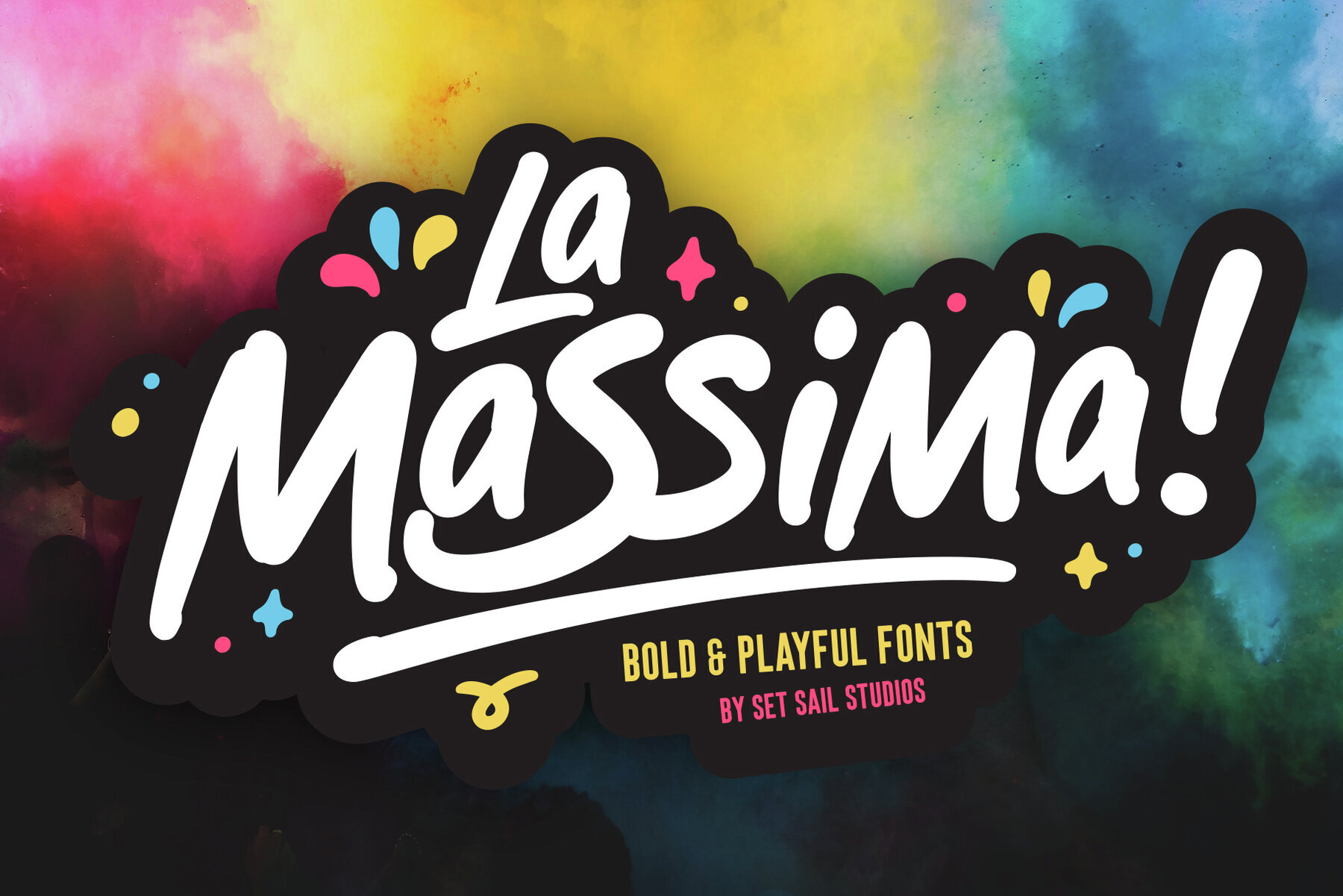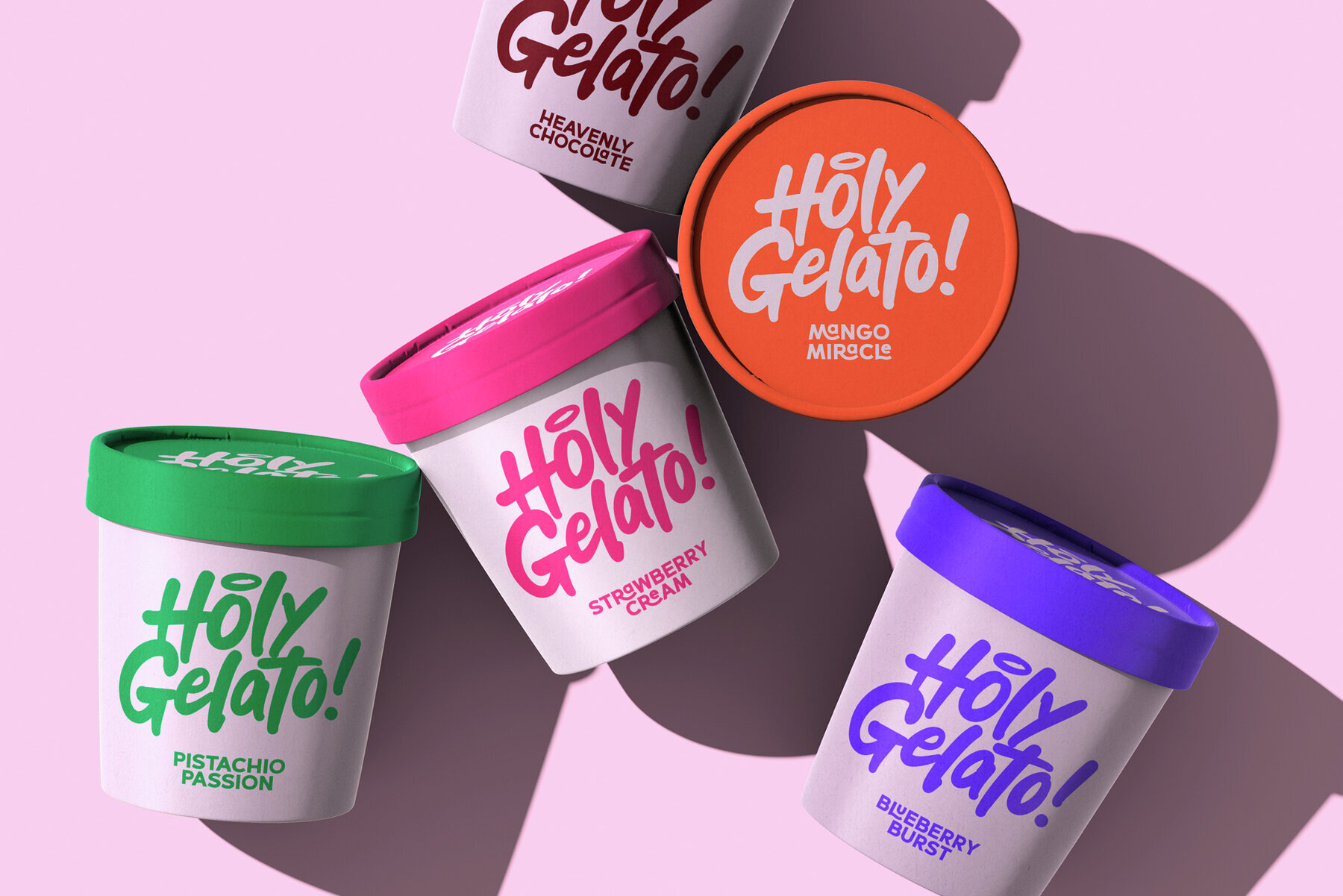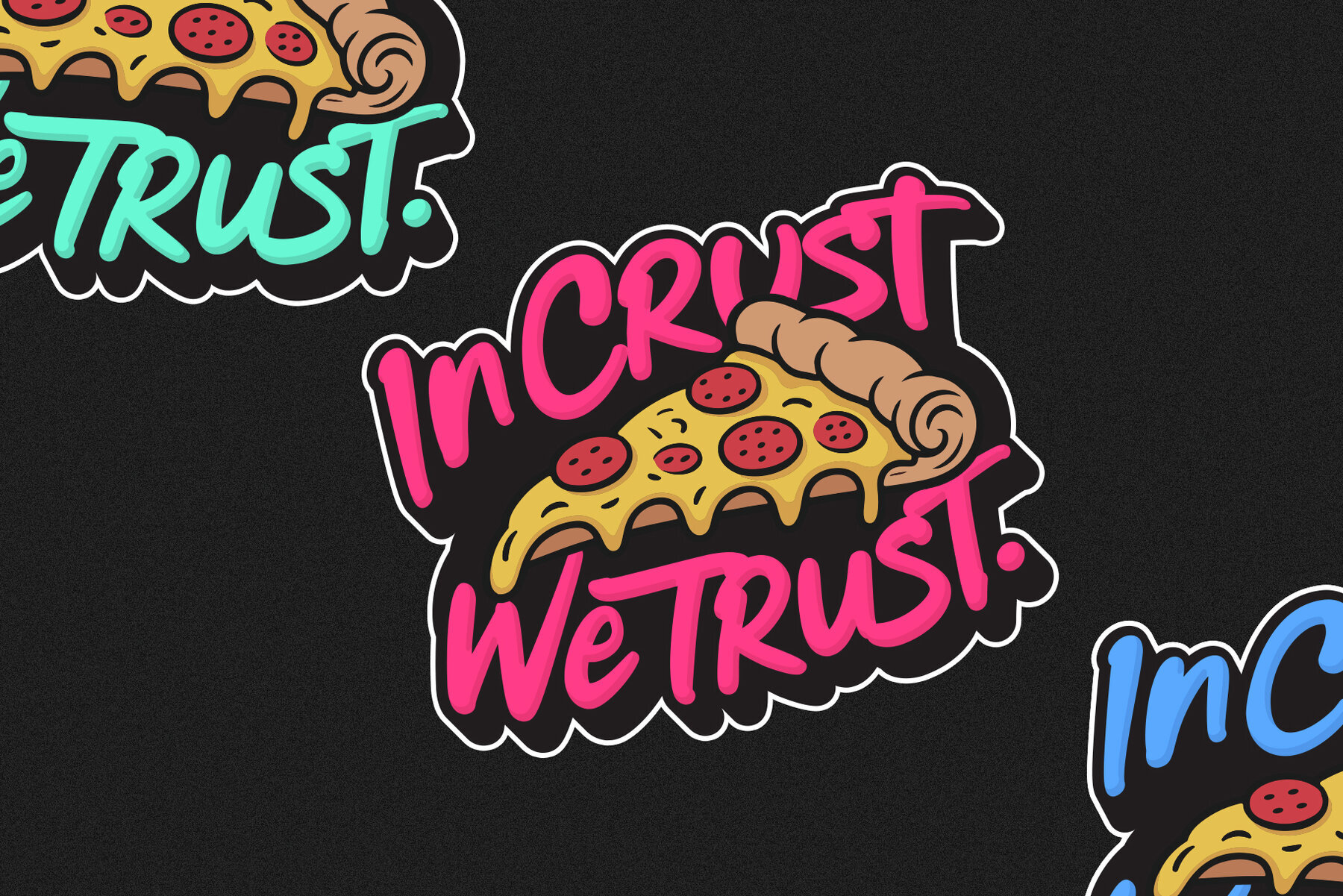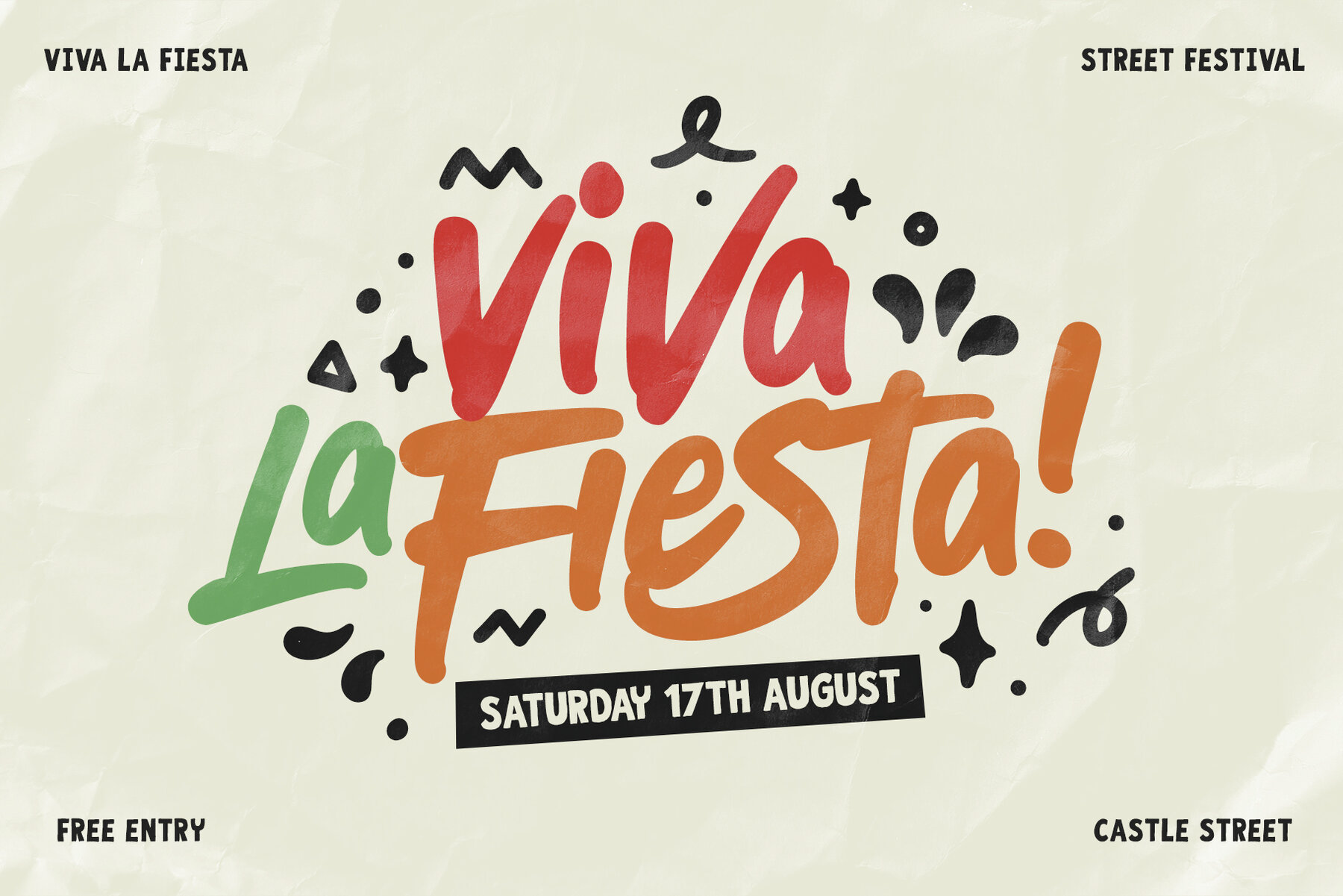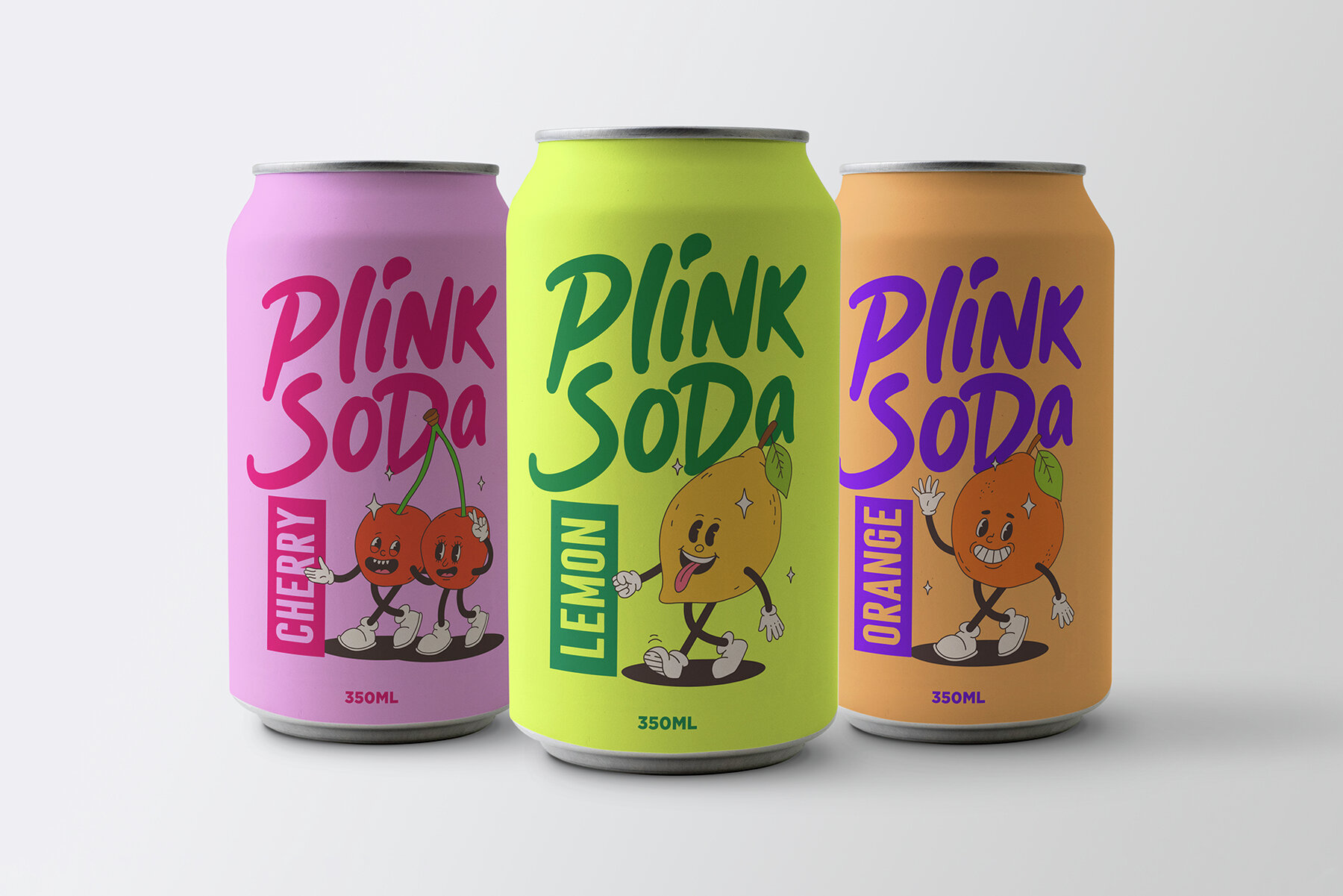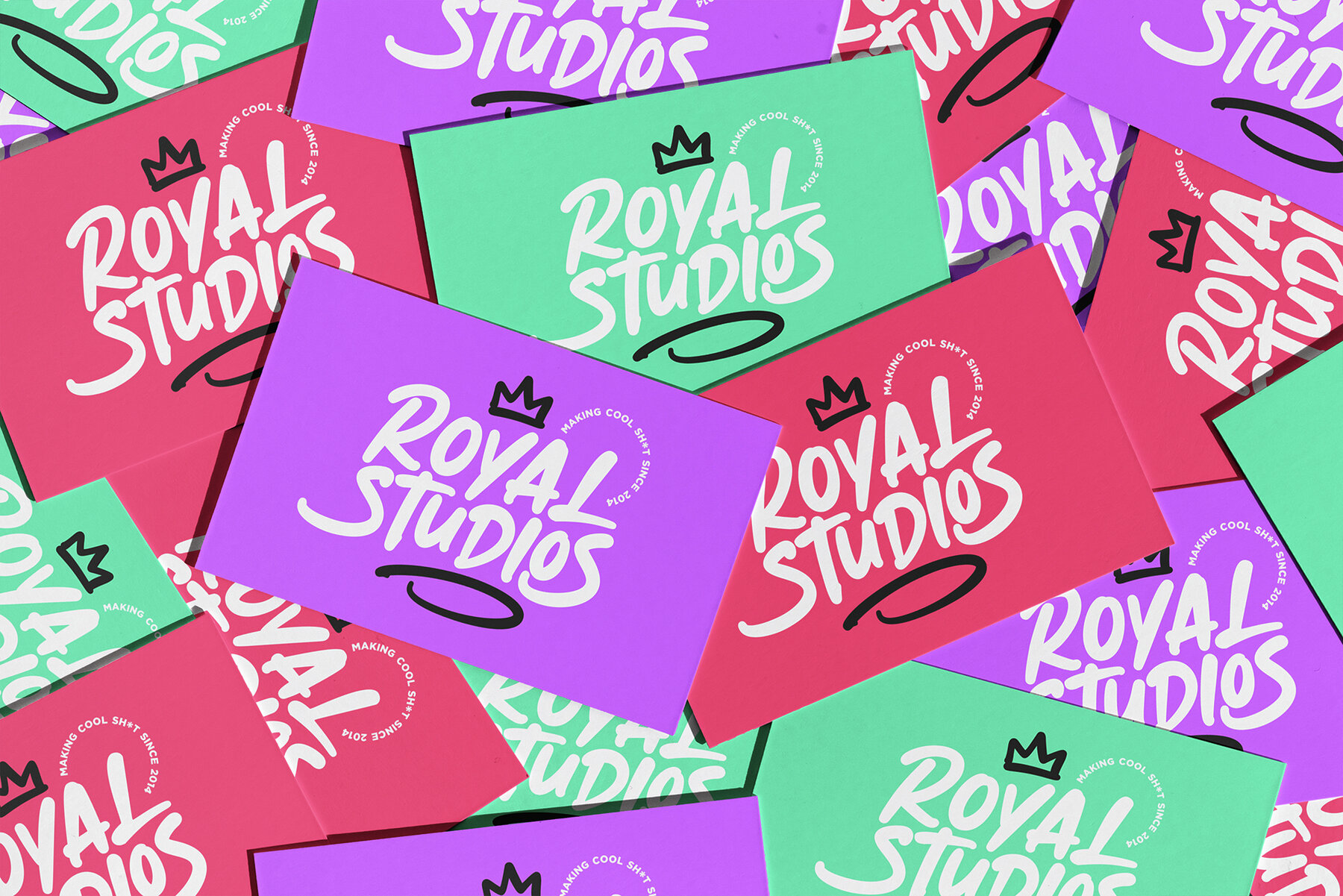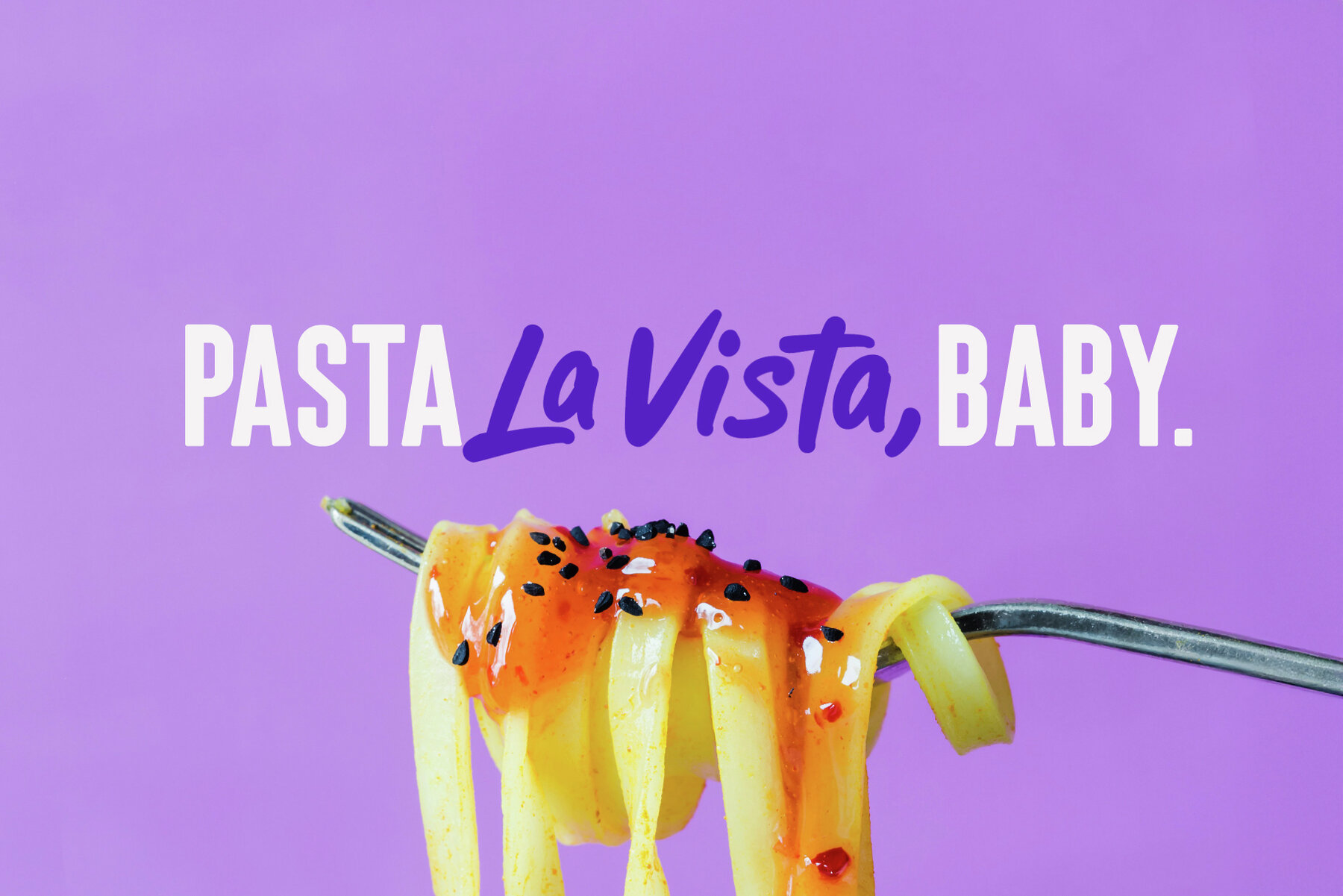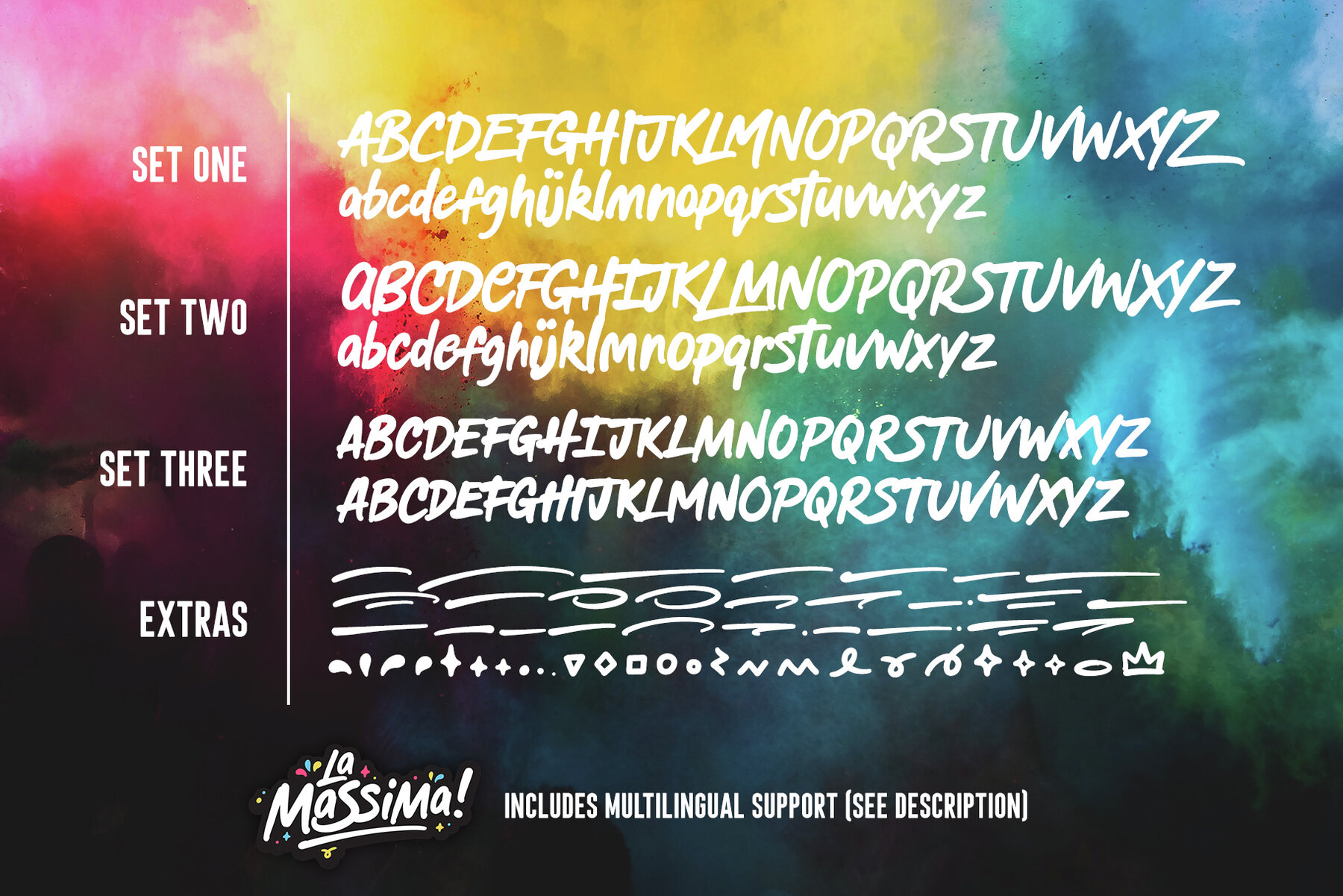
La Massima Font
La Massima brings an energetic, handcrafted look to your creative projects with four dynamic fonts in one versatile collection. Each font is made for those who want their typography to feel lively and authentic. Use La Massima to create standout branding, vibrant packaging, or display text that demands attention. This set offers remarkable flexibility for custom type layouts. With three unique alphabets and a specialty font filled with 52 underline swashes and doodles, it’s easy to mix and match styles for a personal touch. Experiment with alternating characters from each set, adjust sizes, or combine playful marks to achieve a truly bespoke look. La Massima: Playful Hand-Drawn Fonts for Bold Design